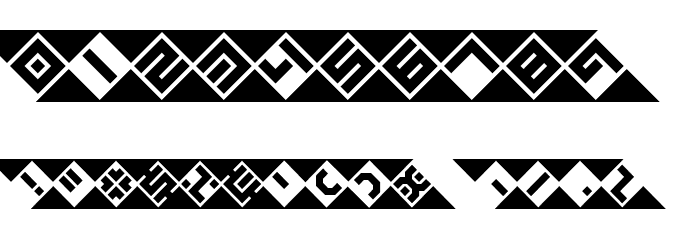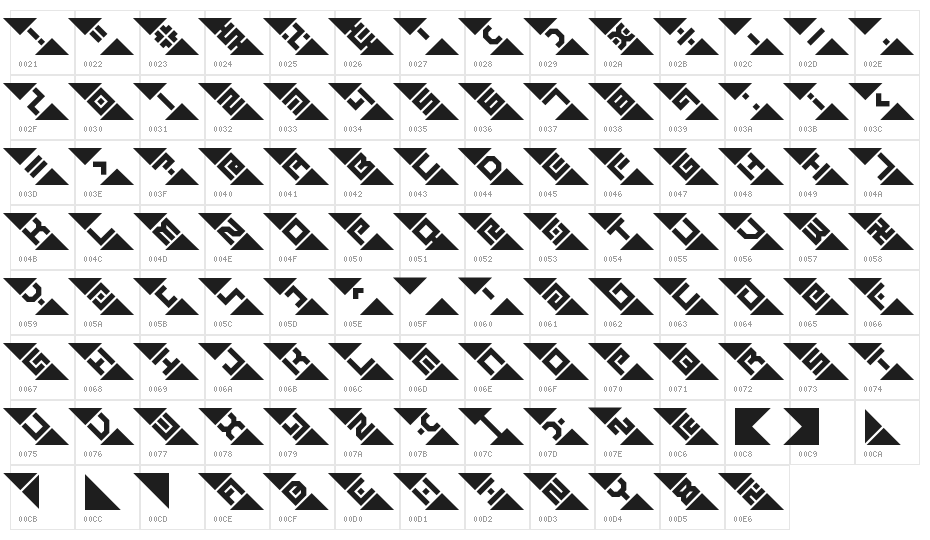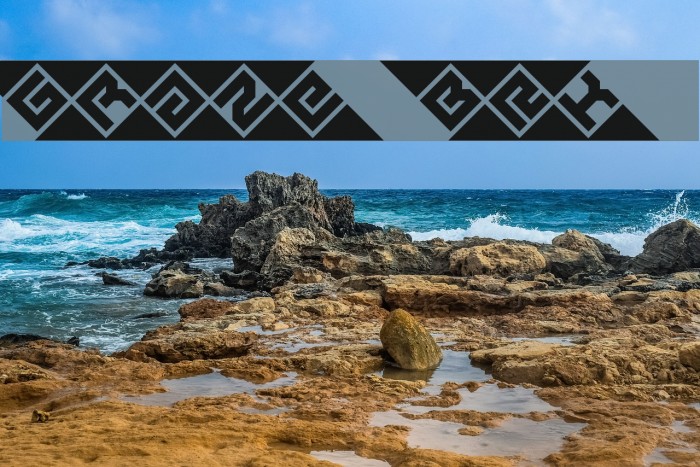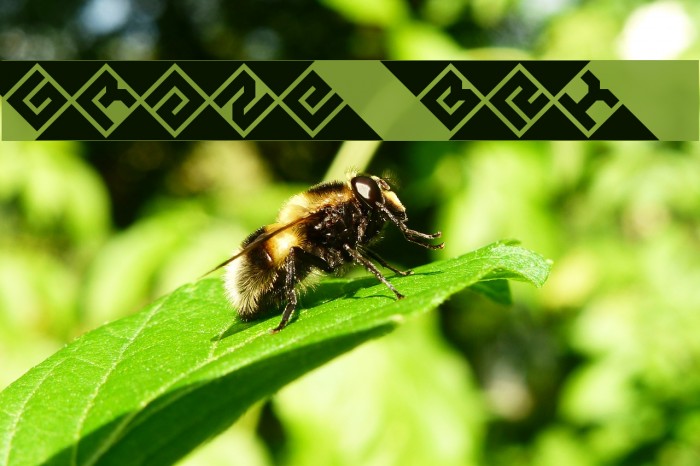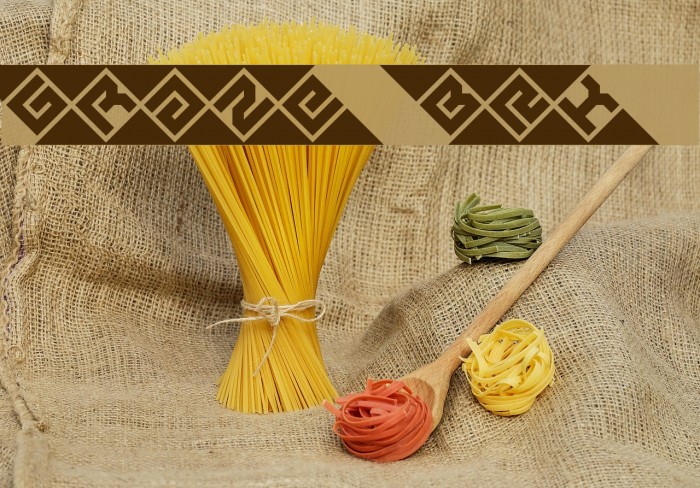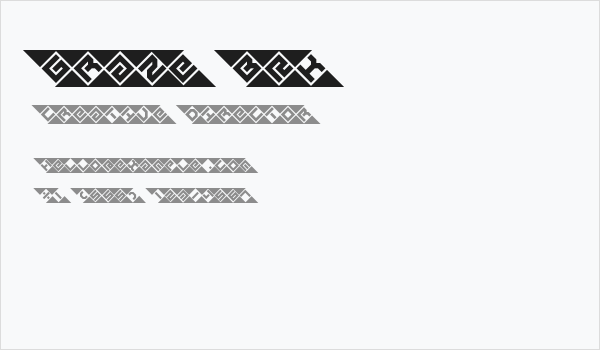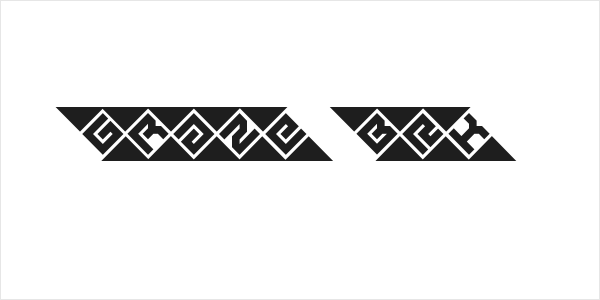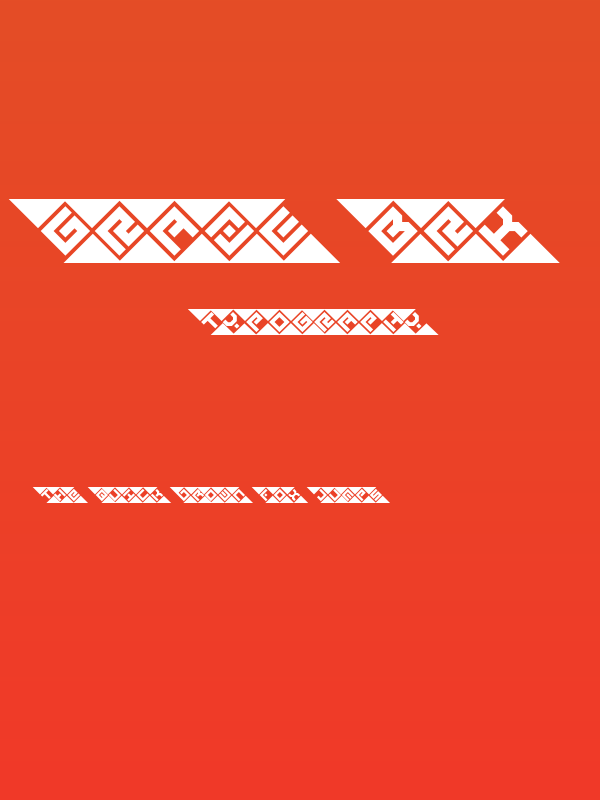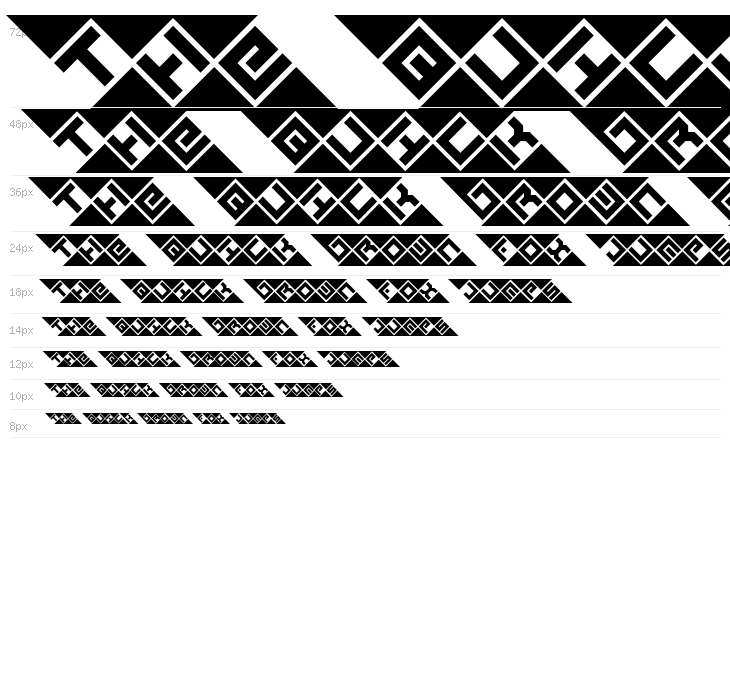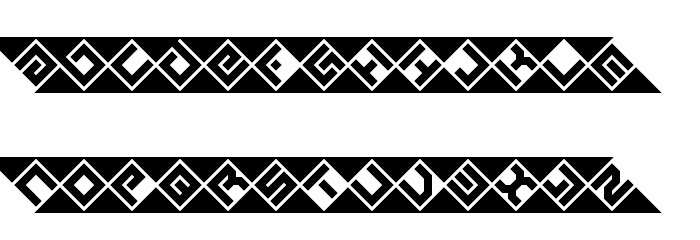
Graze BRK Font
Graze BRK Description
This font features a unique geometric design where each character is enclosed within a diamond shape. The letters and numbers are stylized with angular, bold lines that create a striking visual impact. The use of negative space within the diamonds adds to the complexity and modern feel of the font. The characters are evenly spaced within their diamond frames, providing a consistent and cohesive look across the entire set. This font is particularly eye-catching and would stand out in any design project that requires a bold statement.
| Proposed Projects | Ideal for modern posters, album covers, branding projects, and any design requiring a bold, geometric aesthetic. |